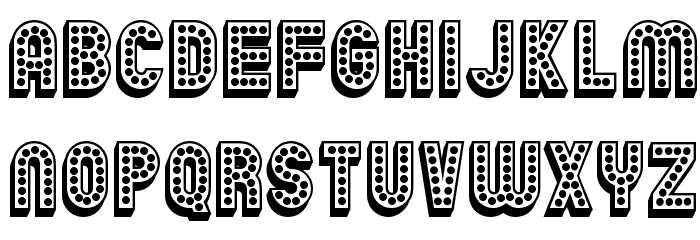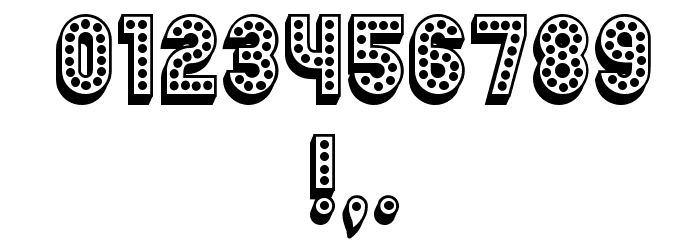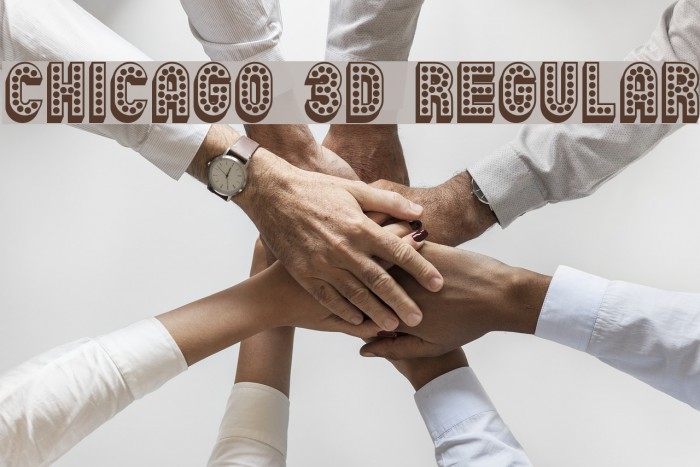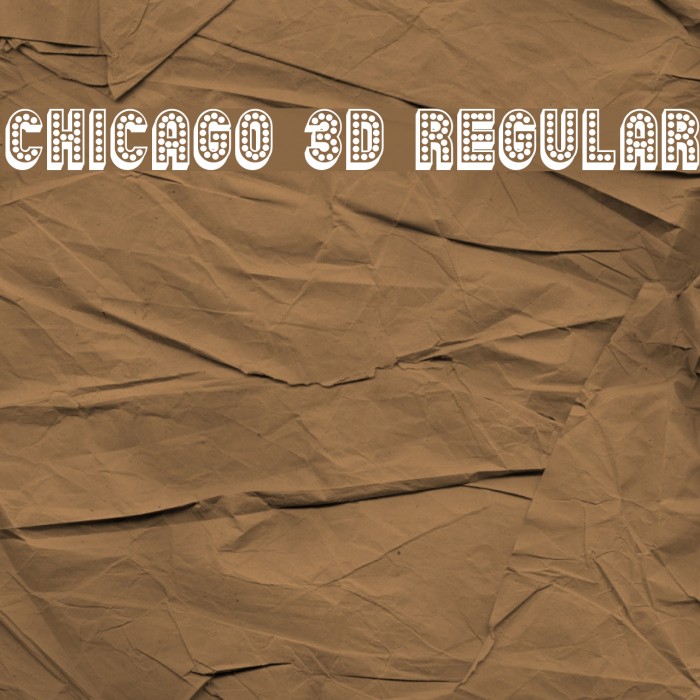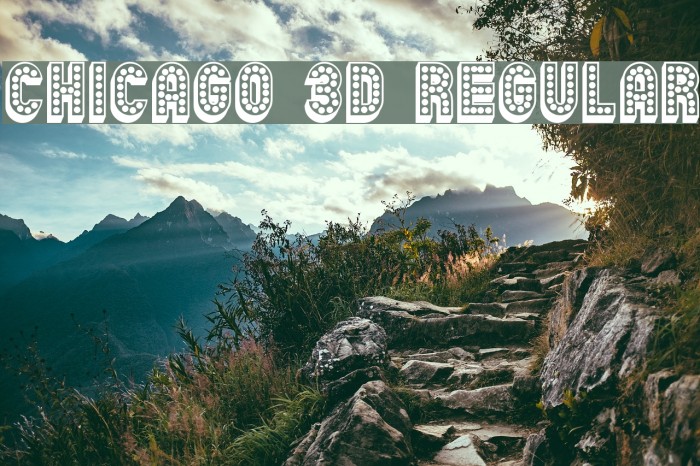
Chicago 3D Regular Font
This font features a bold, three-dimensional style with a dotted pattern filling each character. The uppercase and lowercase letters maintain a consistent geometric form, creating a playful yet structured appearance. The numbers and special characters follow the same design, ensuring uniformity across all elements. The font's unique 3D effect is achieved through the use of shadows and highlights, giving it a dynamic and eye-catching look. This makes it ideal for projects that require a standout, decorative typeface.
A bold, 3D font with a dotted pattern and geometric structure.
- Proposed Projects: Ideal for posters, signage, branding, and any project needing a striking, decorative font.